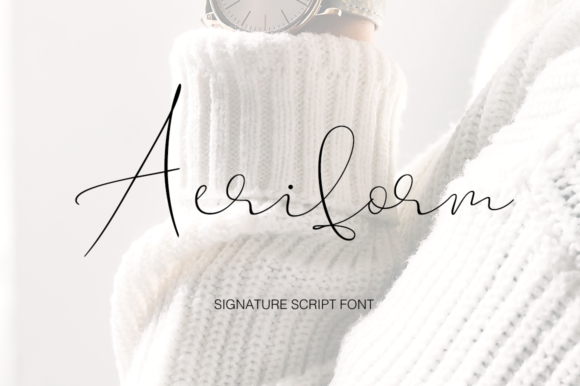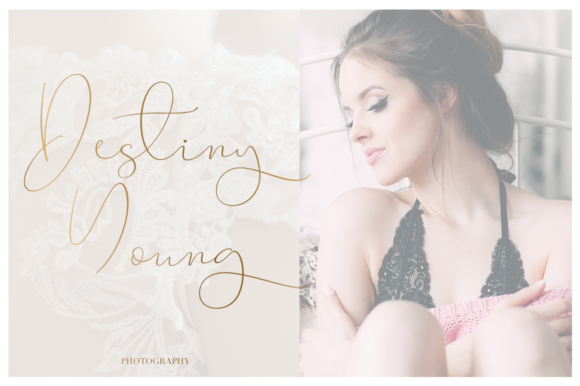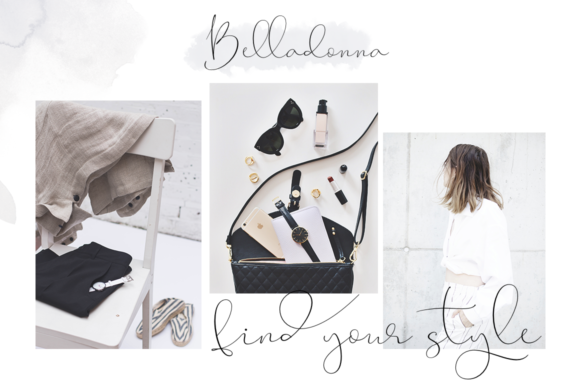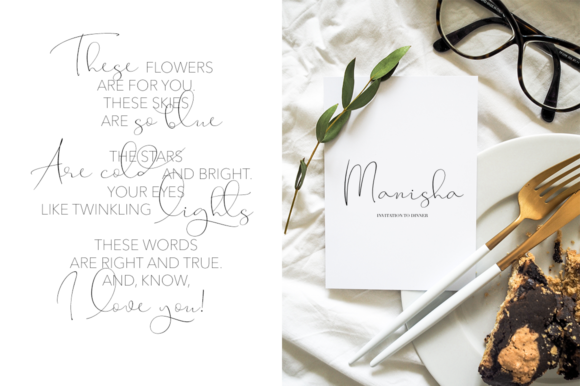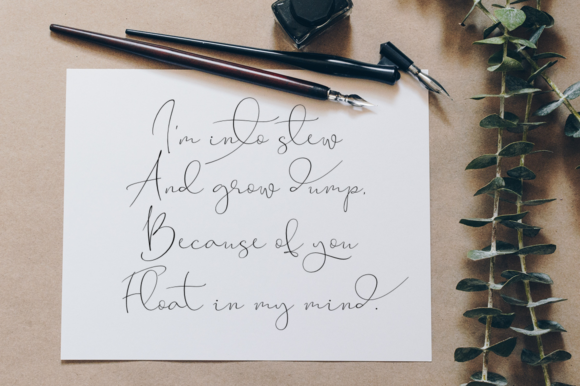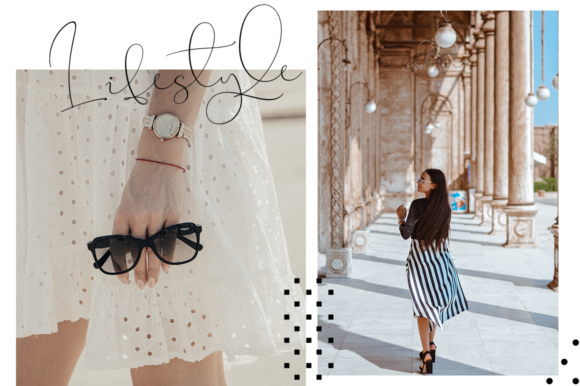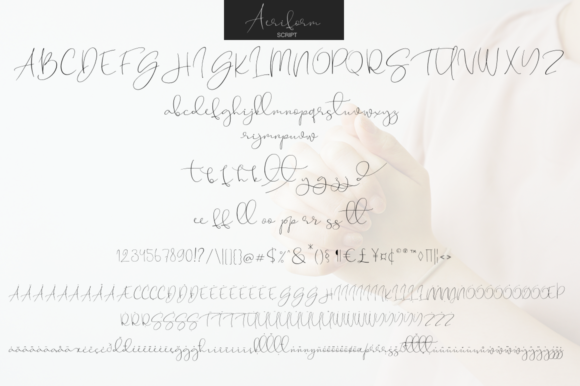
Aeriform Font
About Aeriform Font
The Aeriform is an elegant calligraphy script. It has a classy feel which makes it perfect for wedding designs, book covers, magazines, and much more!